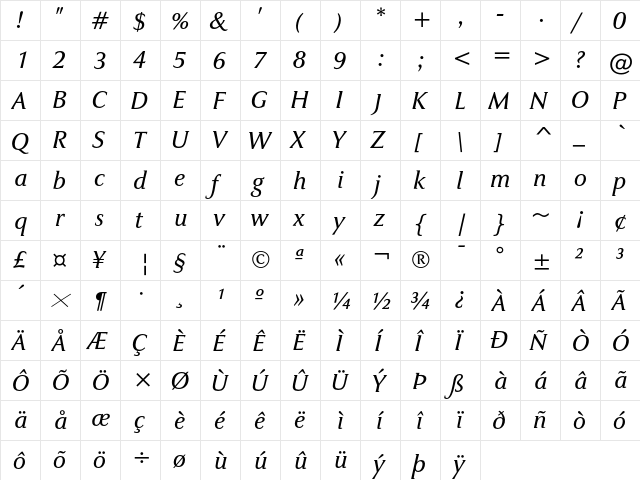
JaguarJC BookItalic
Design Context for JaguarJC Typeface
JaguarJC takes a measured approach to typography — its balanced proportions and neutral character make it a reliable workhorse for both digital and print work. The slanted form adds forward momentum and visual energy.
Pro Tip: Try JaguarJC for annotation and caption copy alongside an upright companion — the contrast in angle creates a dynamic but ordered typographic system.